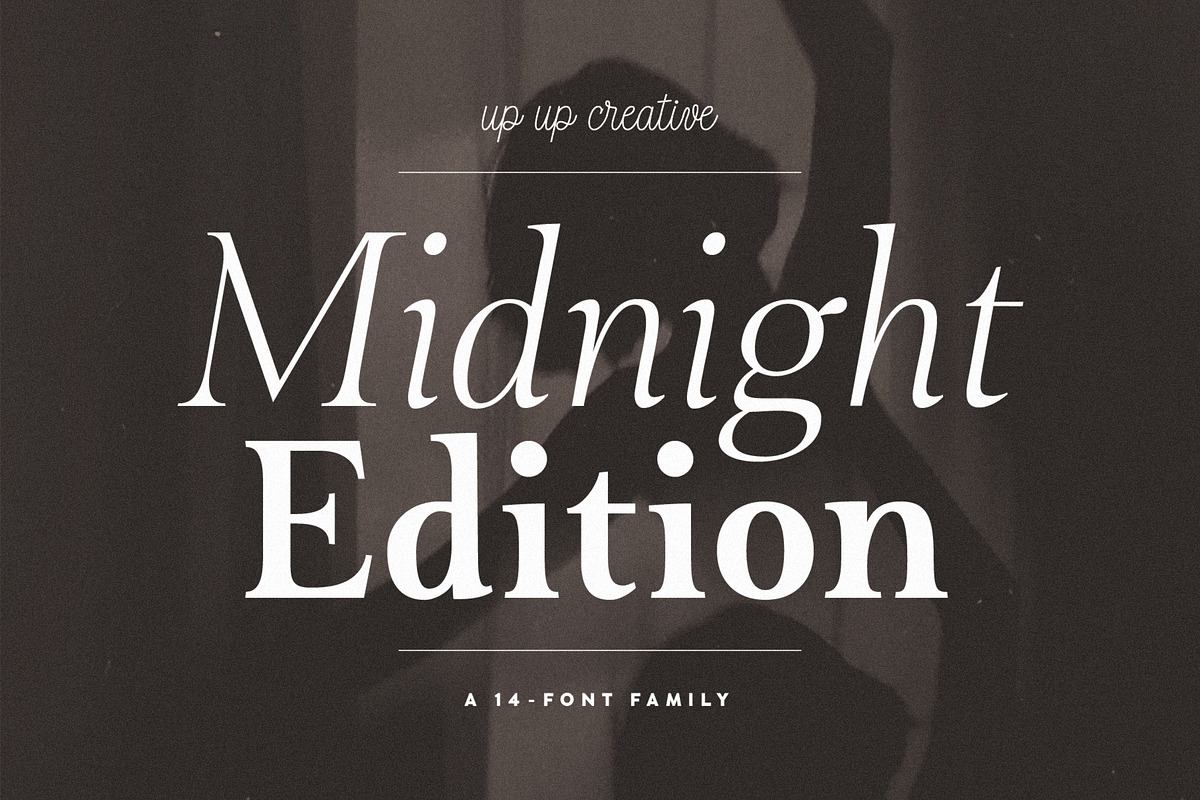
The Midnight Edition Complete - 14 Fonts Free Download is a comprehensive font bundle that includes 14 unique and stylish fonts, perfect for all your creative design needs. With a mix of elegant scripts, bold serifs, and modern sans-serifs, this collection offers versatile options for branding, logos, posters, invitations, and more. Each font in the bundle is designed to elevate your typography with a professional, contemporary feel while maintaining readability and style. Whether you're designing for a corporate brand, event promotion, or personal projects, the Midnight Edition Complete Font Bundle will bring a polished and creative edge to your work. Please note, for commercial use, a license purchase is required. However, you can easily download the Midnight Edition Complete - 14 Fonts Free Download for free for personal use and explore its potential. Download the Midnight Edition Complete - 14 Fonts Free Download today and enhance your designs with this diverse font collection.